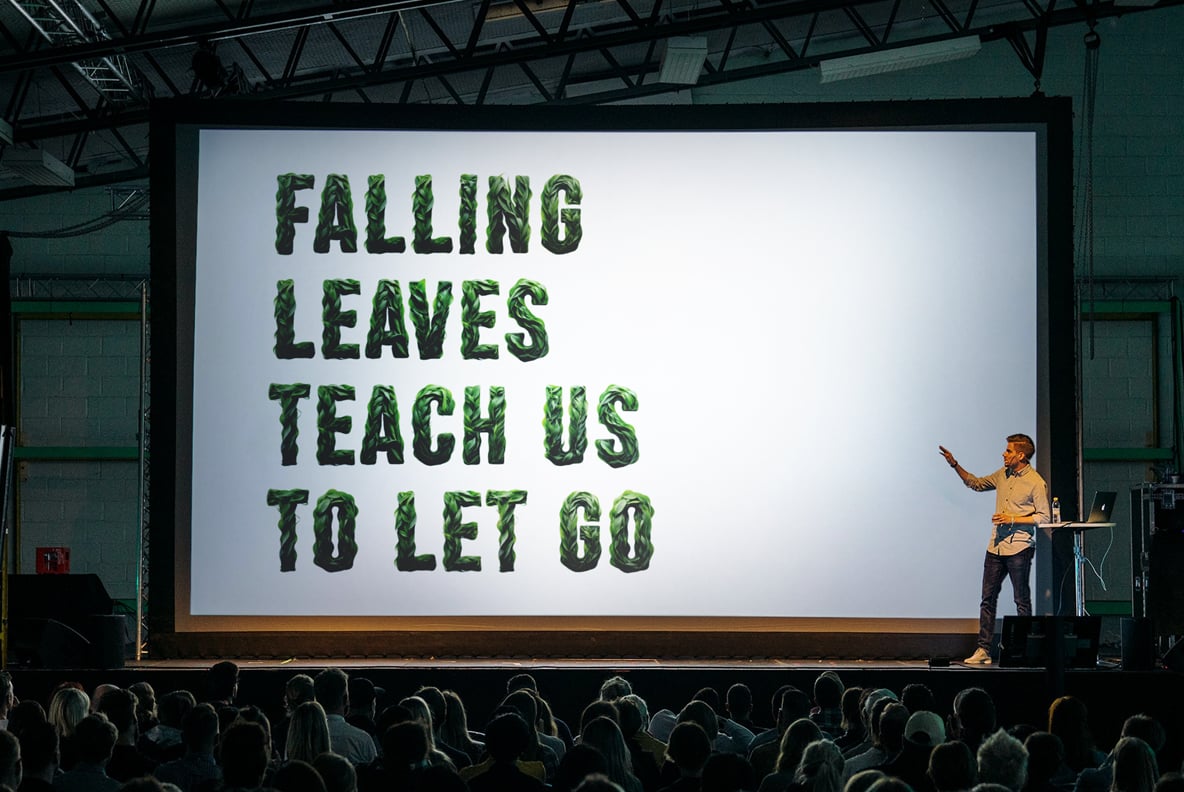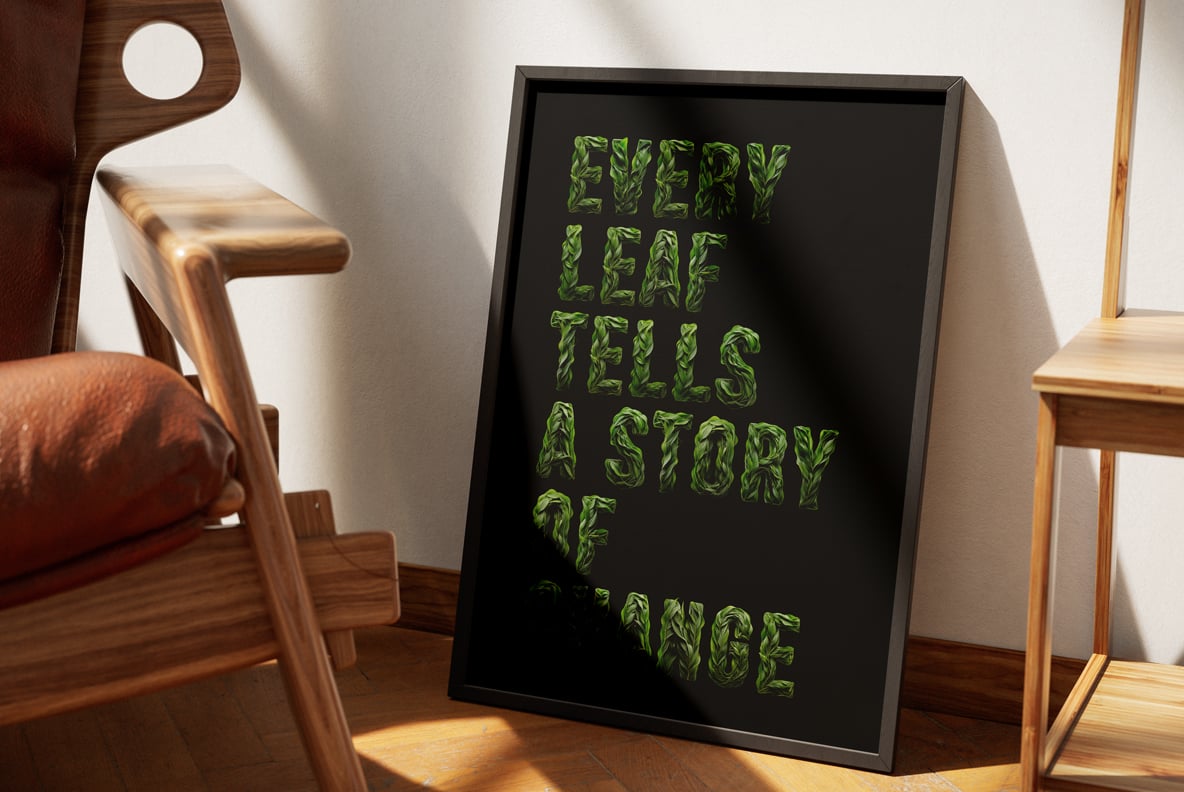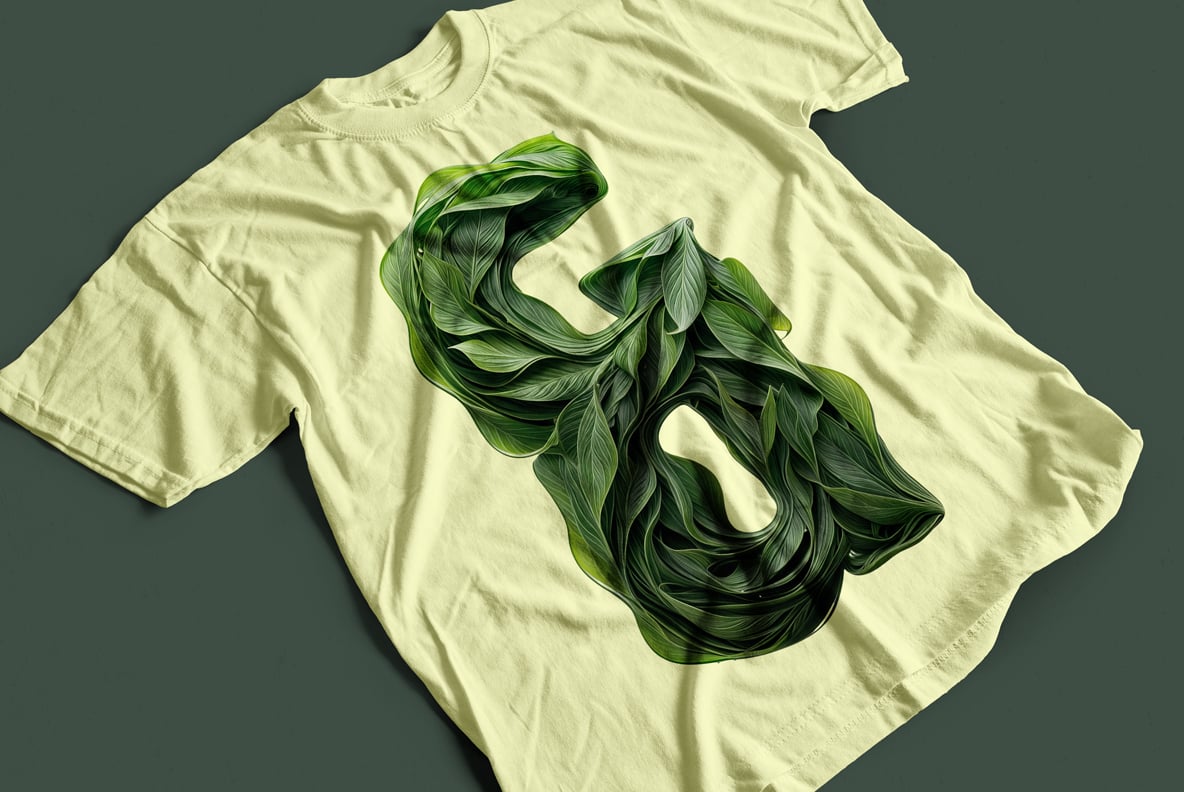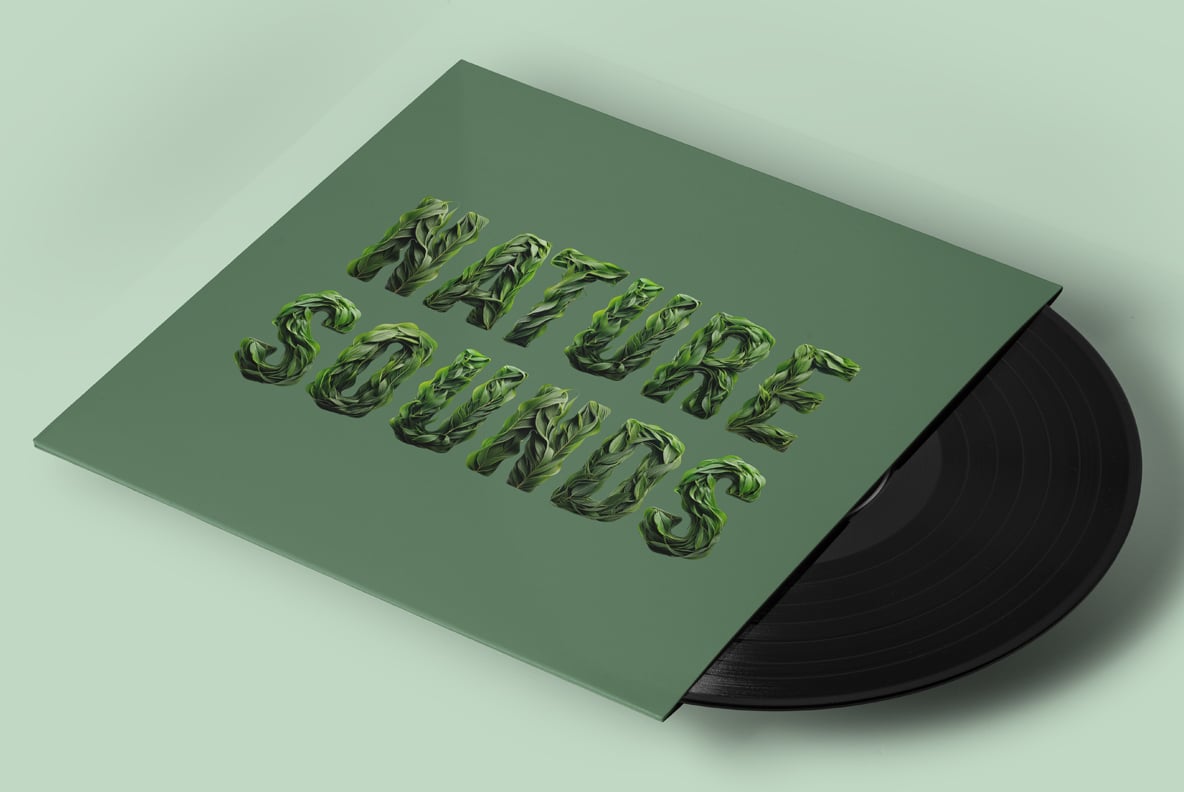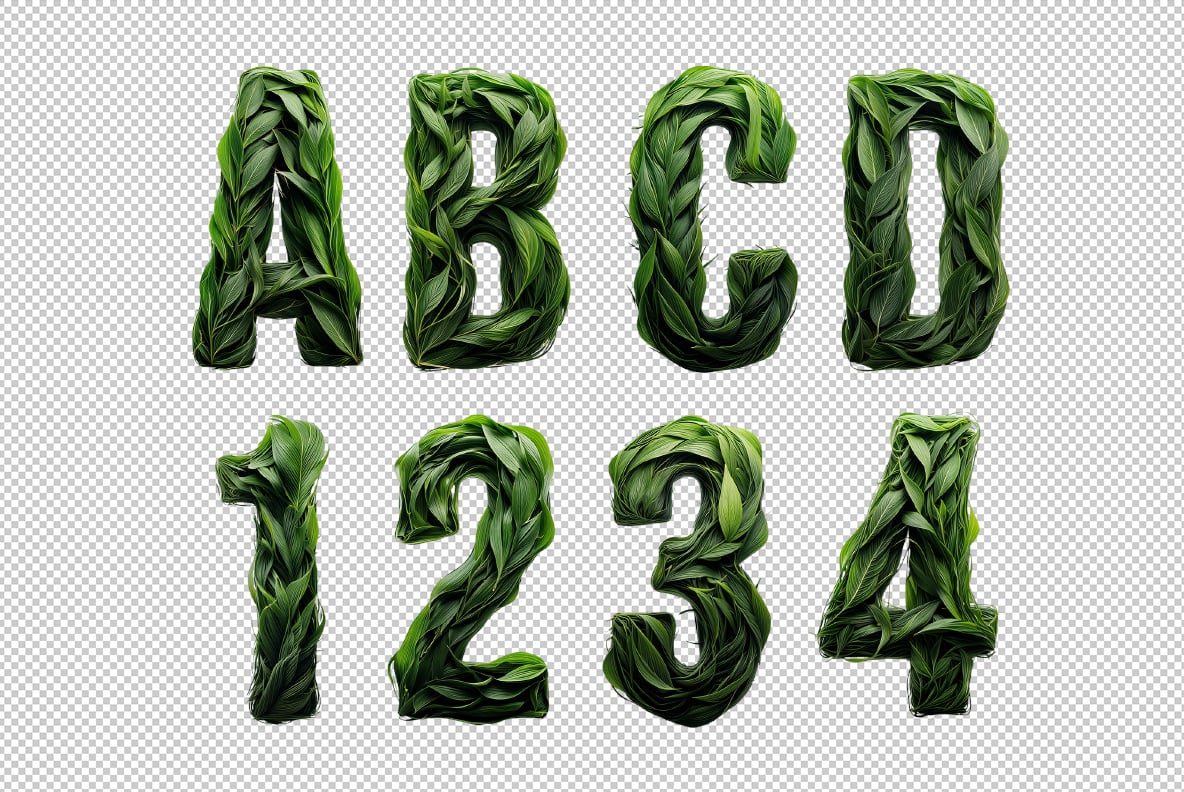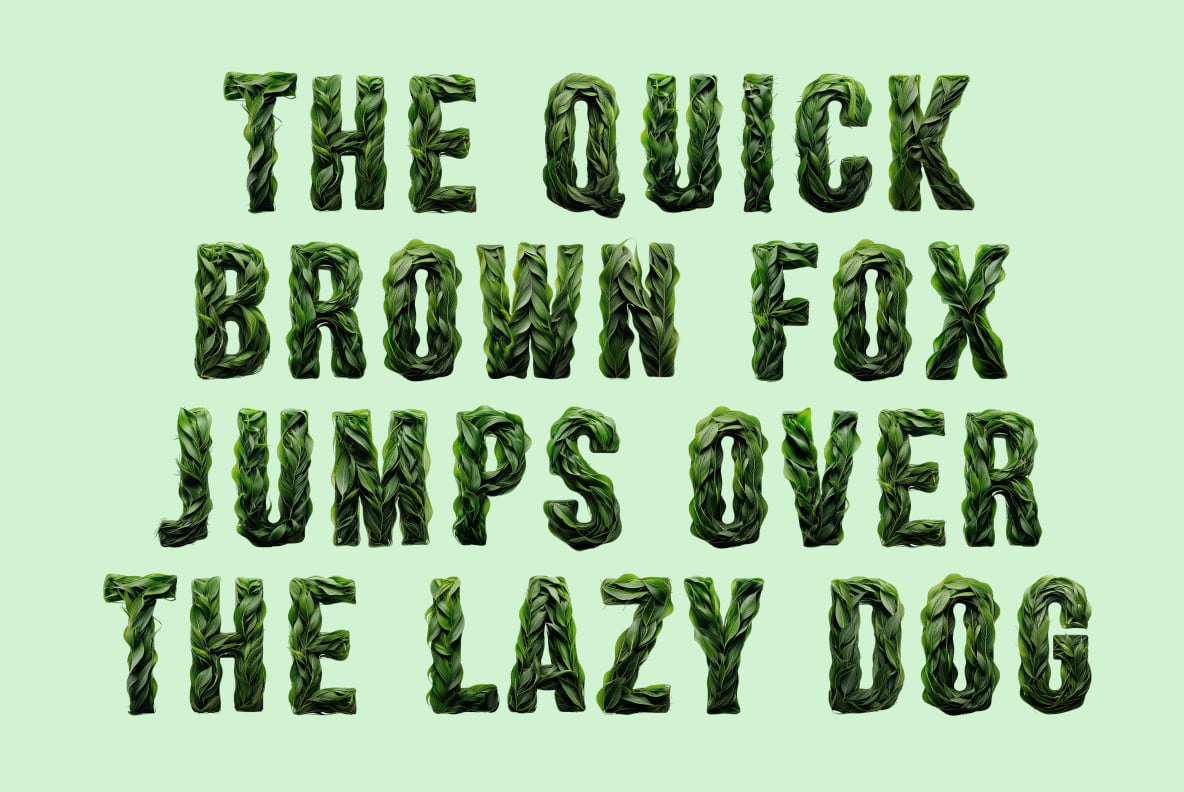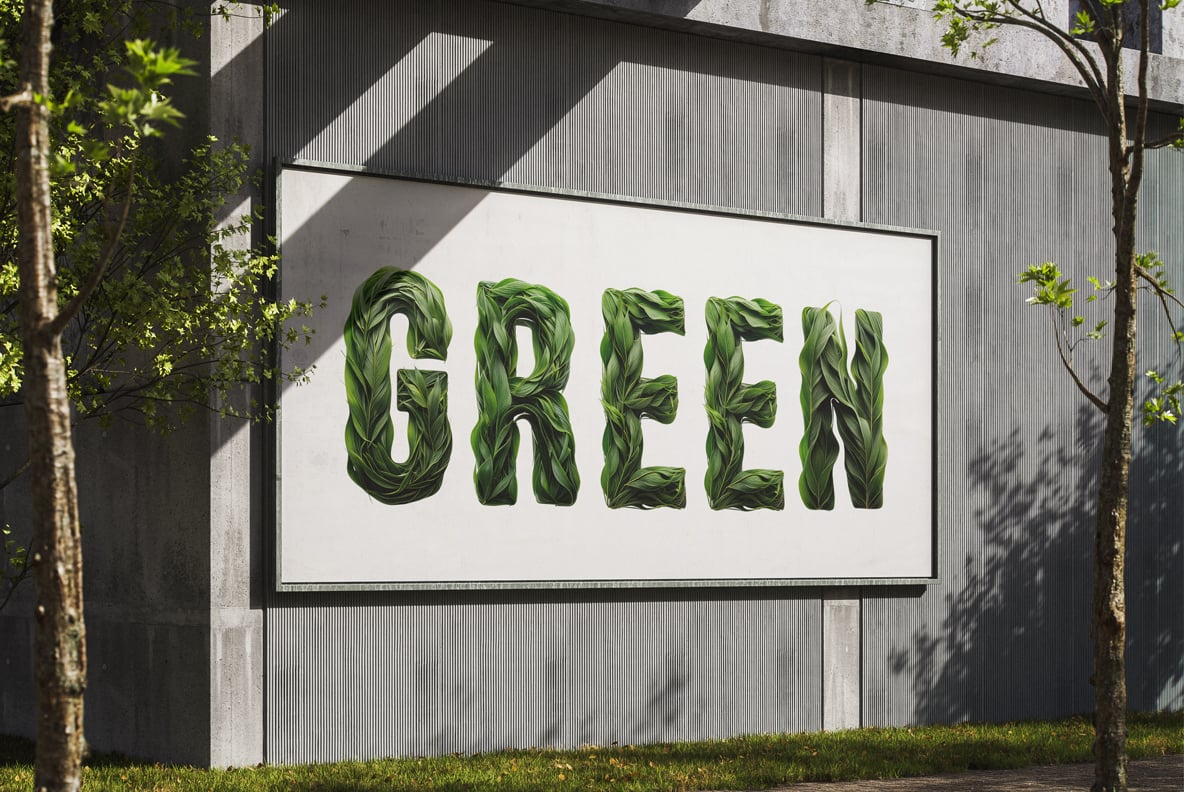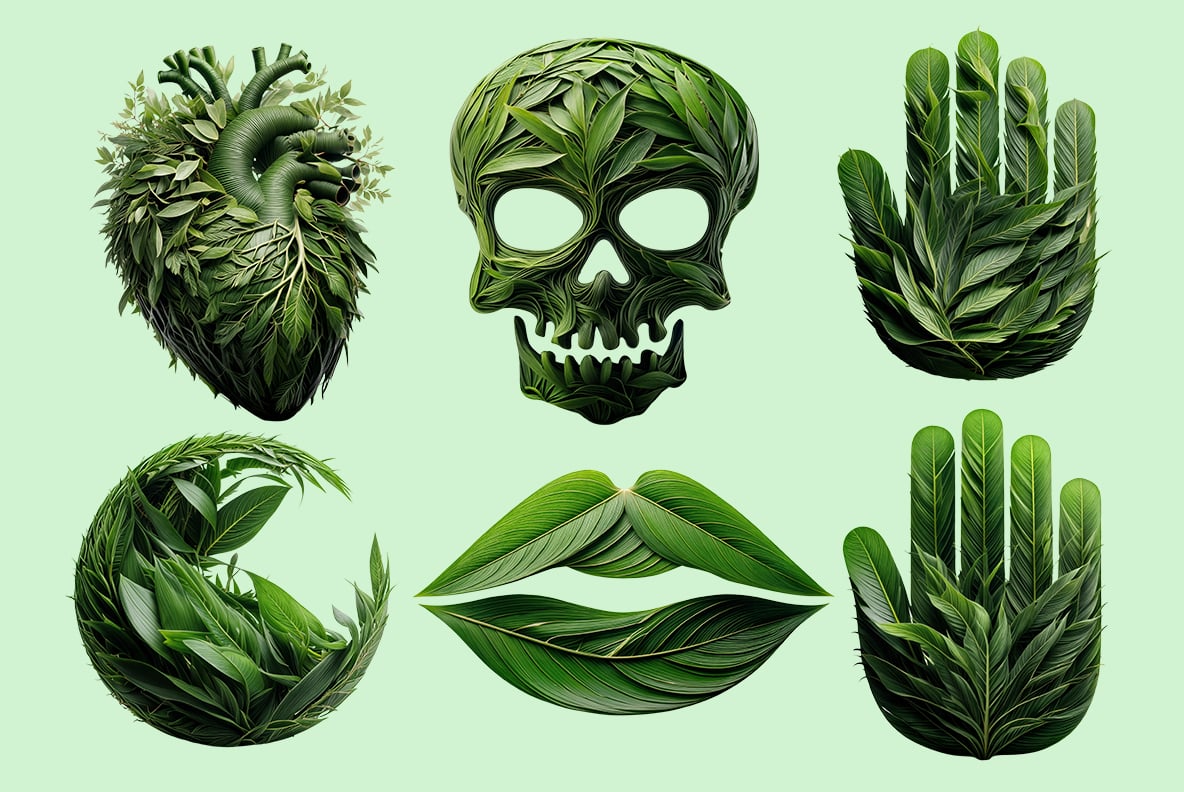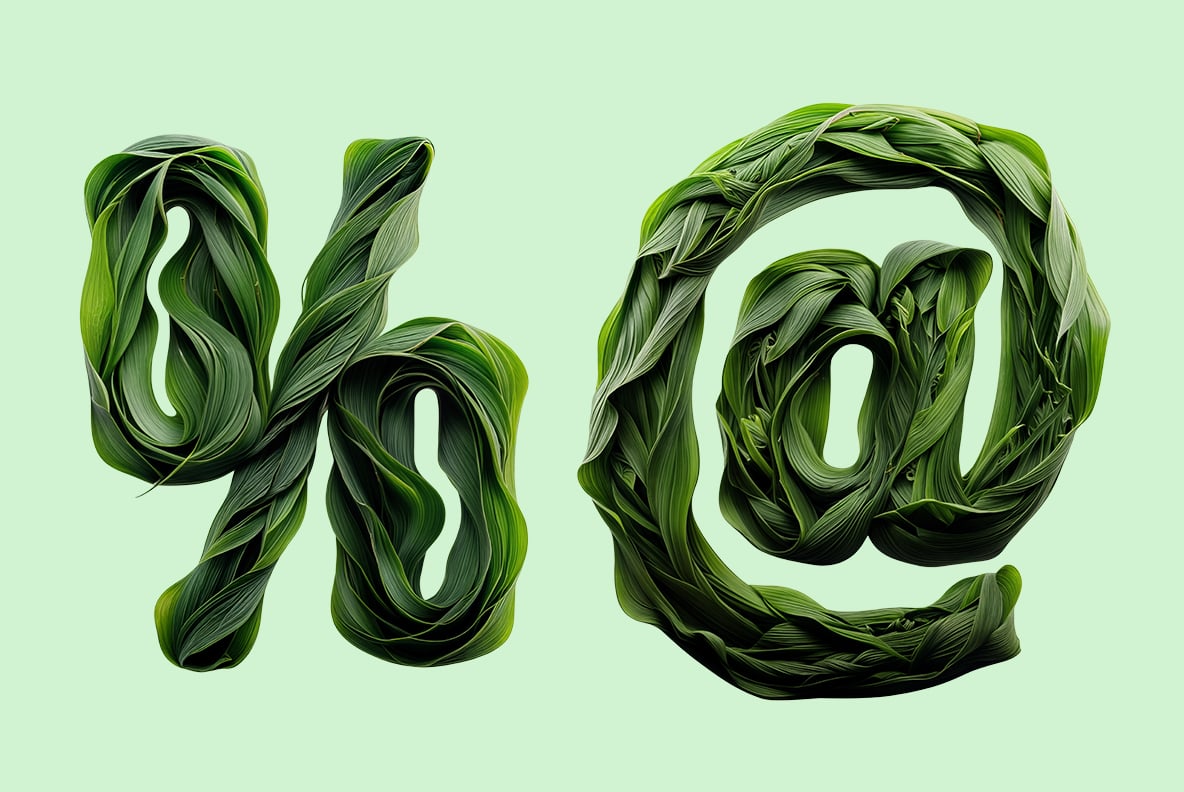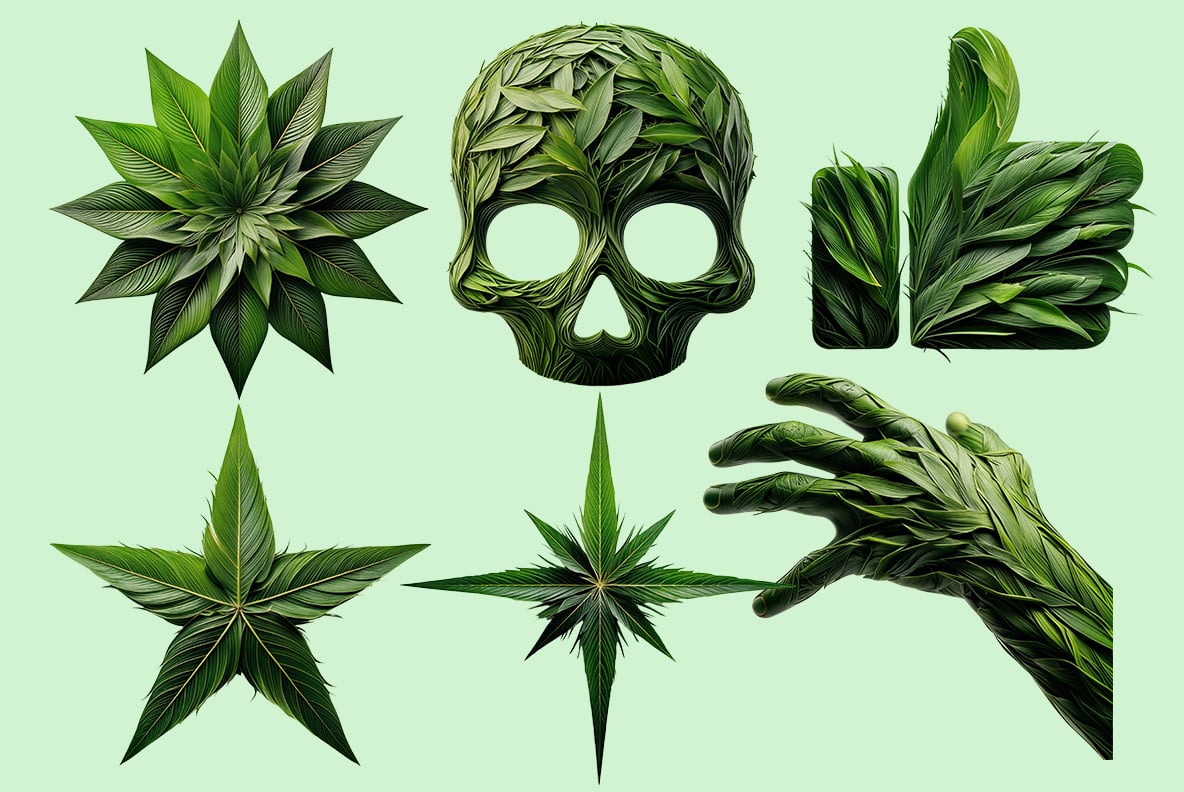
Wildleaf Font
The Wildleaf Font is a stunning nature-inspired typeface crafted from lush, vibrant green leaves. Every letter feels alive, woven with organic textures that capture the beauty of wild forests and untouched landscapes. This font embodies freshness, sustainability, and a deep connection to nature, making it perfect for eco-friendly branding, botanical packaging, environmental campaigns, or earthy editorial design. Wildleaf brings a unique balance of elegance and natural charm, transforming words into living art. Ideal for projects that need a touch of organic authenticity, this typeface is both bold and graceful — a visual celebration of growth, greenery, and natural harmony.